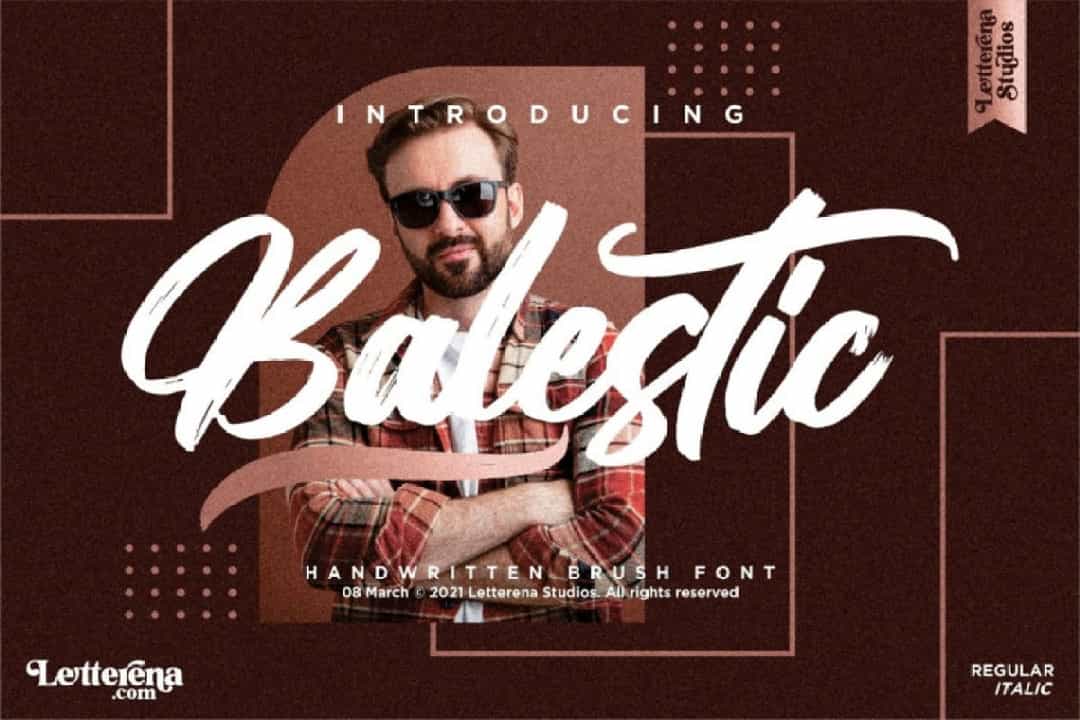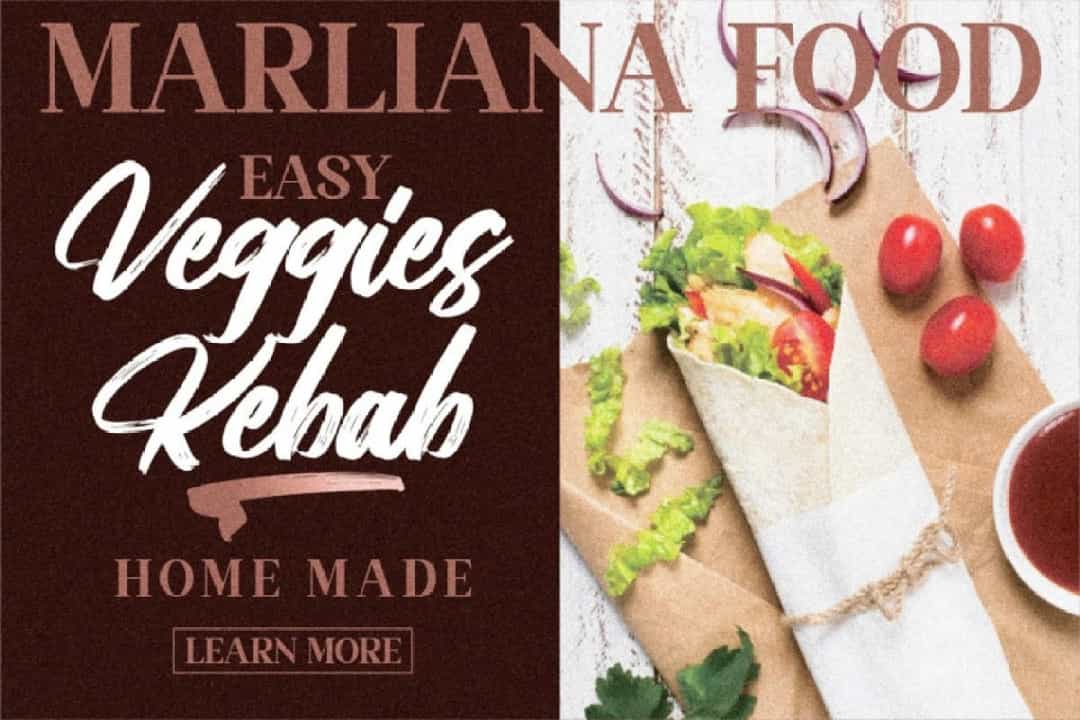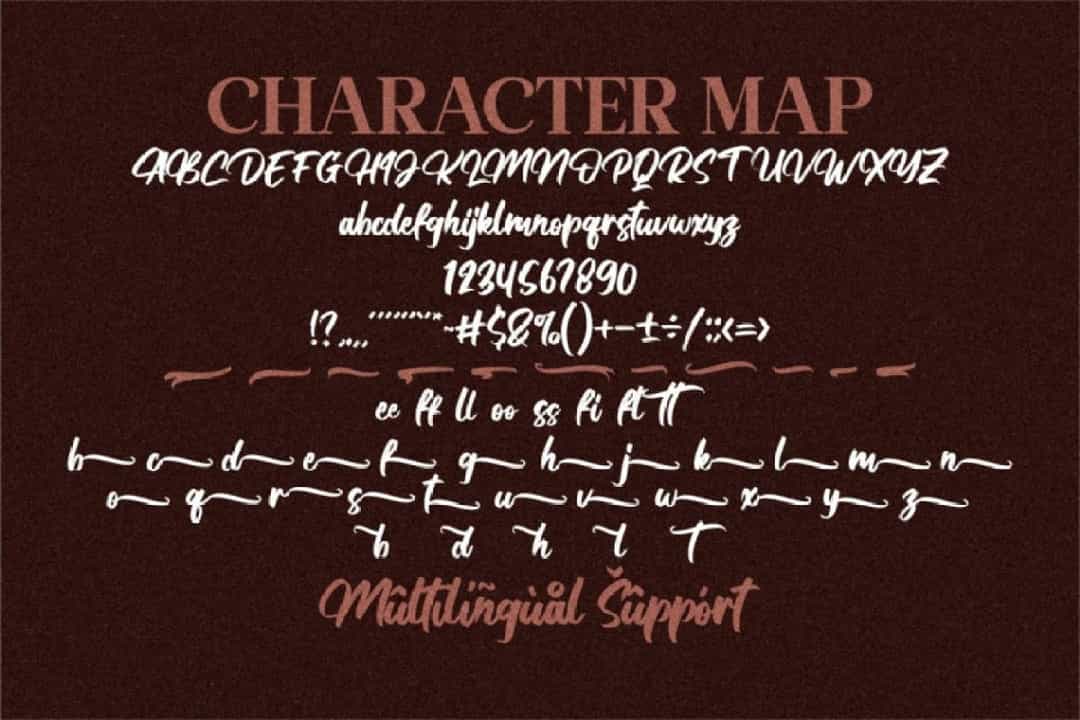
Discover Balestic Font, part of the Brush collection—a versatile and unique font perfect for adding a personal touch to your projects. Download it for free and enjoy crafting designs with style, from invitations to social media posts. This font is available exclusively for personal use, giving you the freedom to create without limits. Unlock your creativity with Balestic Font today!
Balestic is a sophisticated brush script font font suitable for logos, branding assignments, home designs, packaging design projects cups posters shopping bags t-shirts book covers greeting cards invitation cards labels watermarks photography special occasions and upscale projects that need a lot of brush stroke feel.